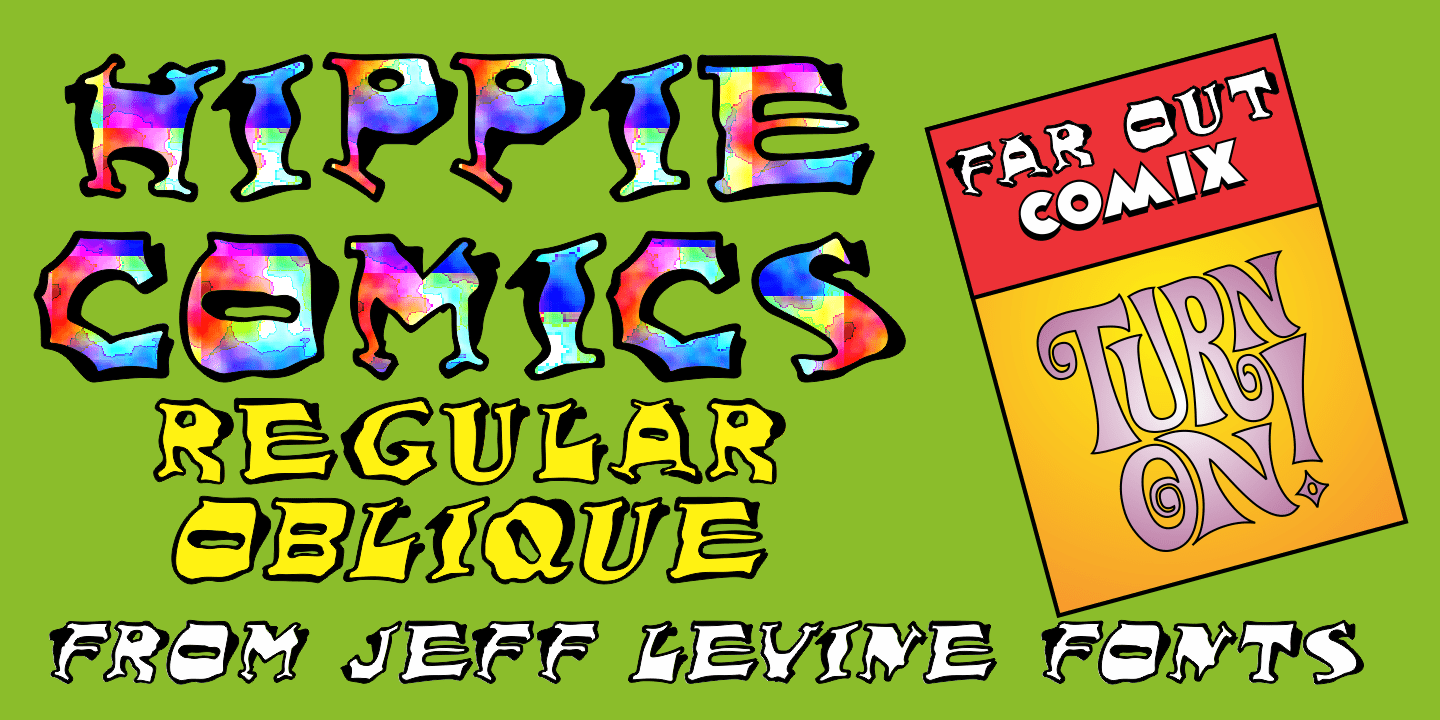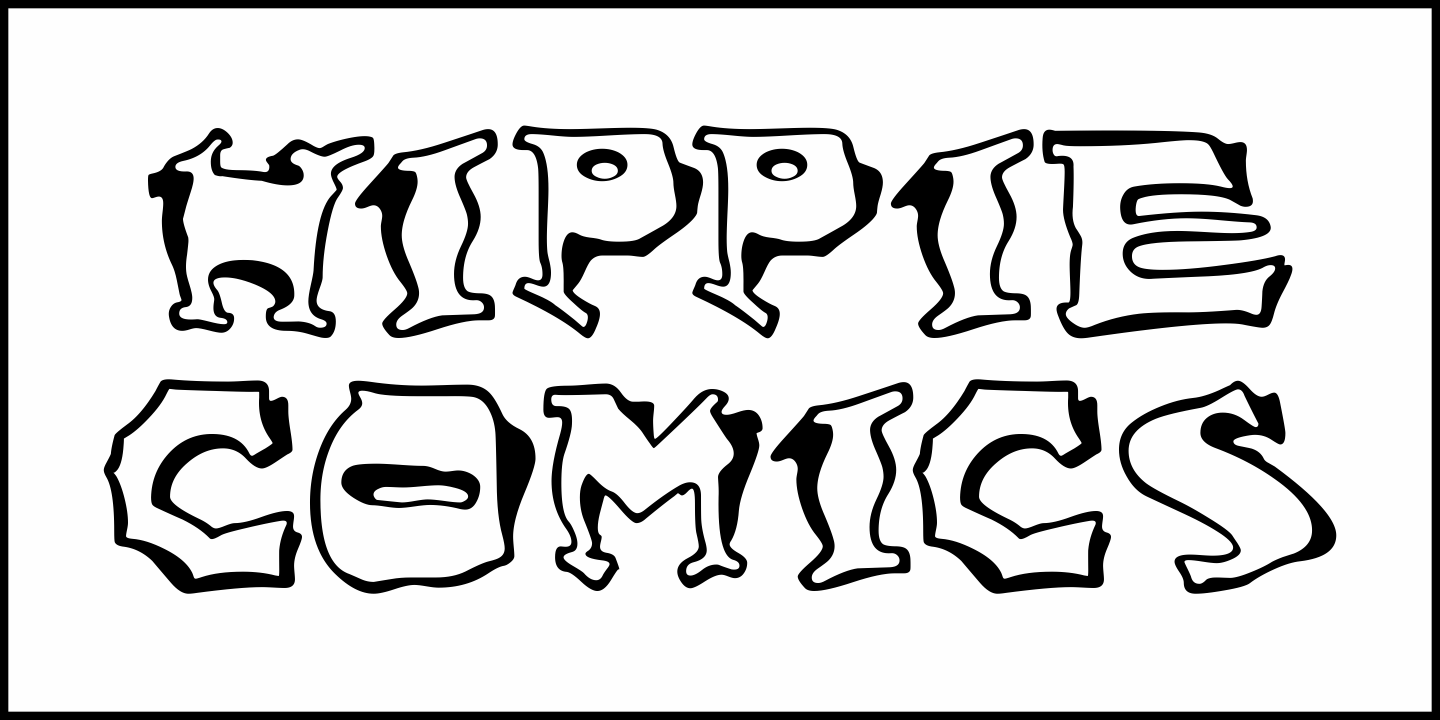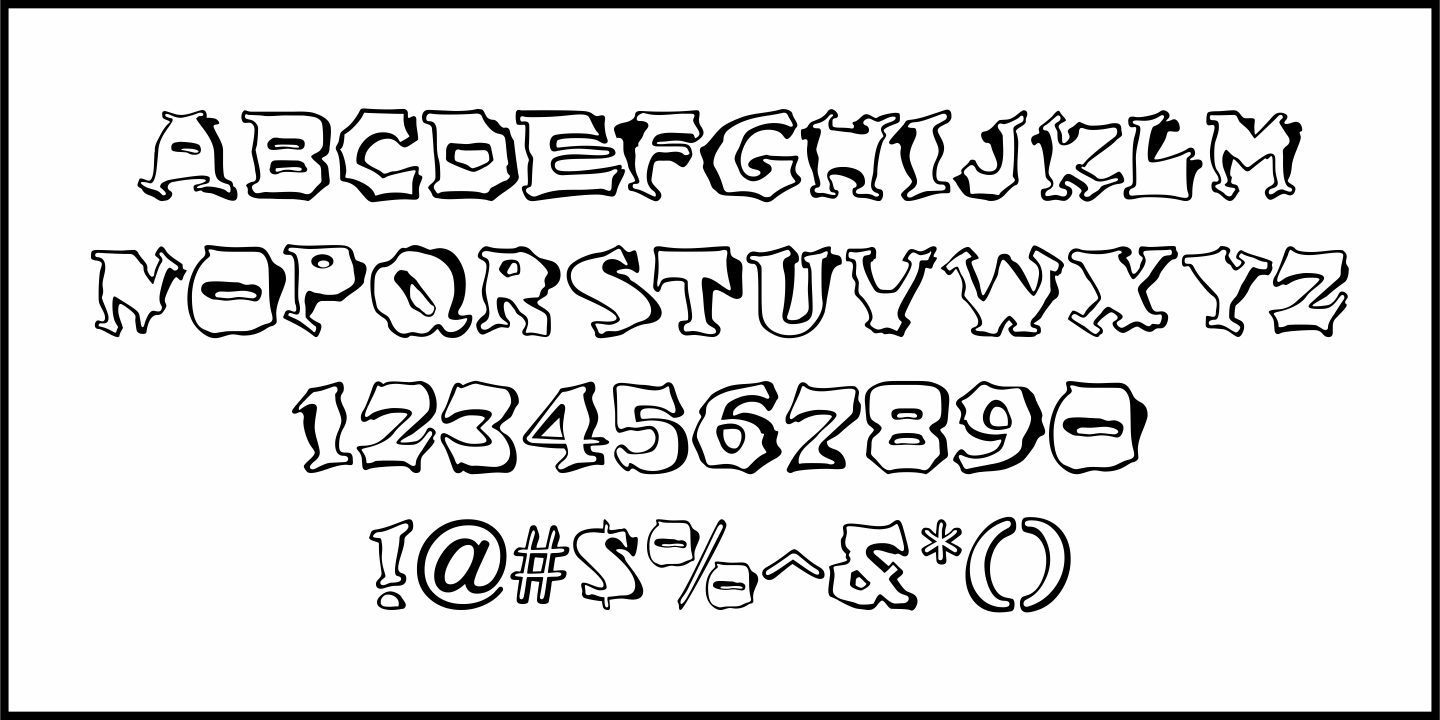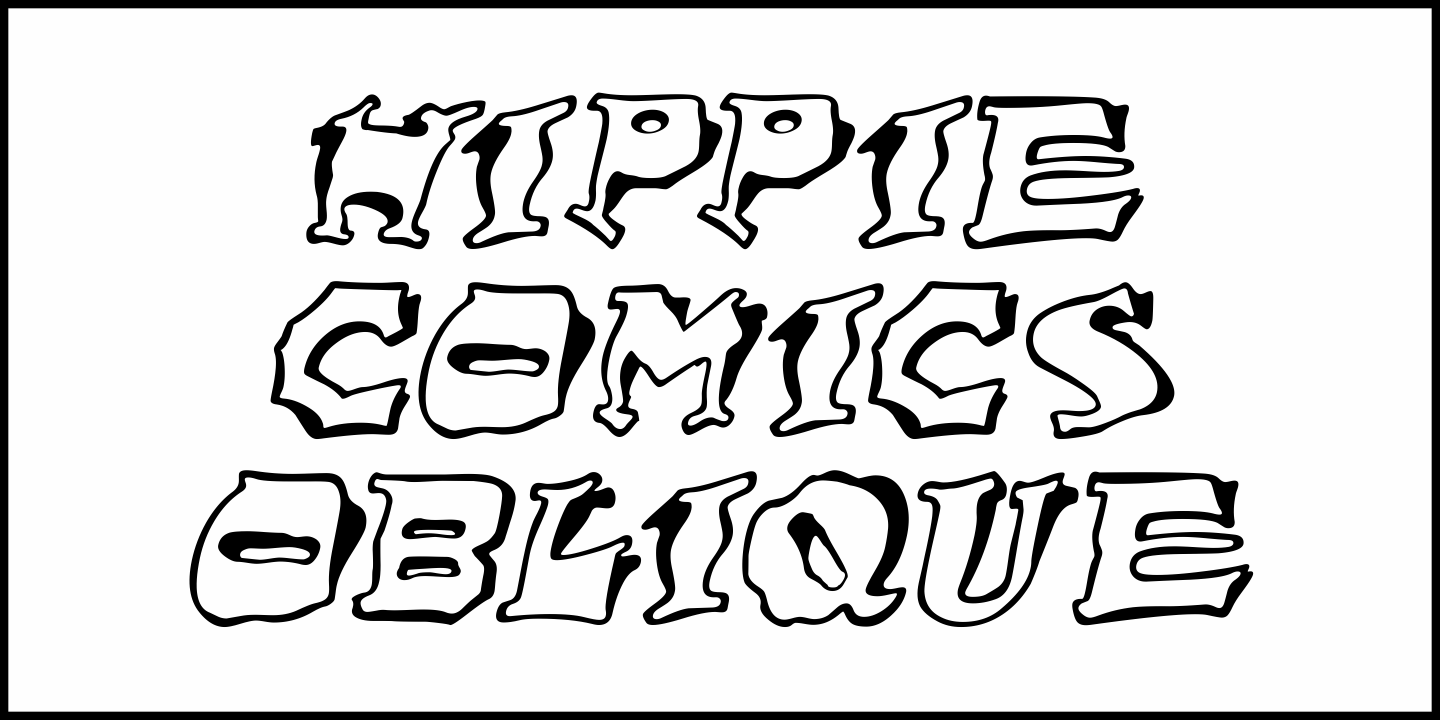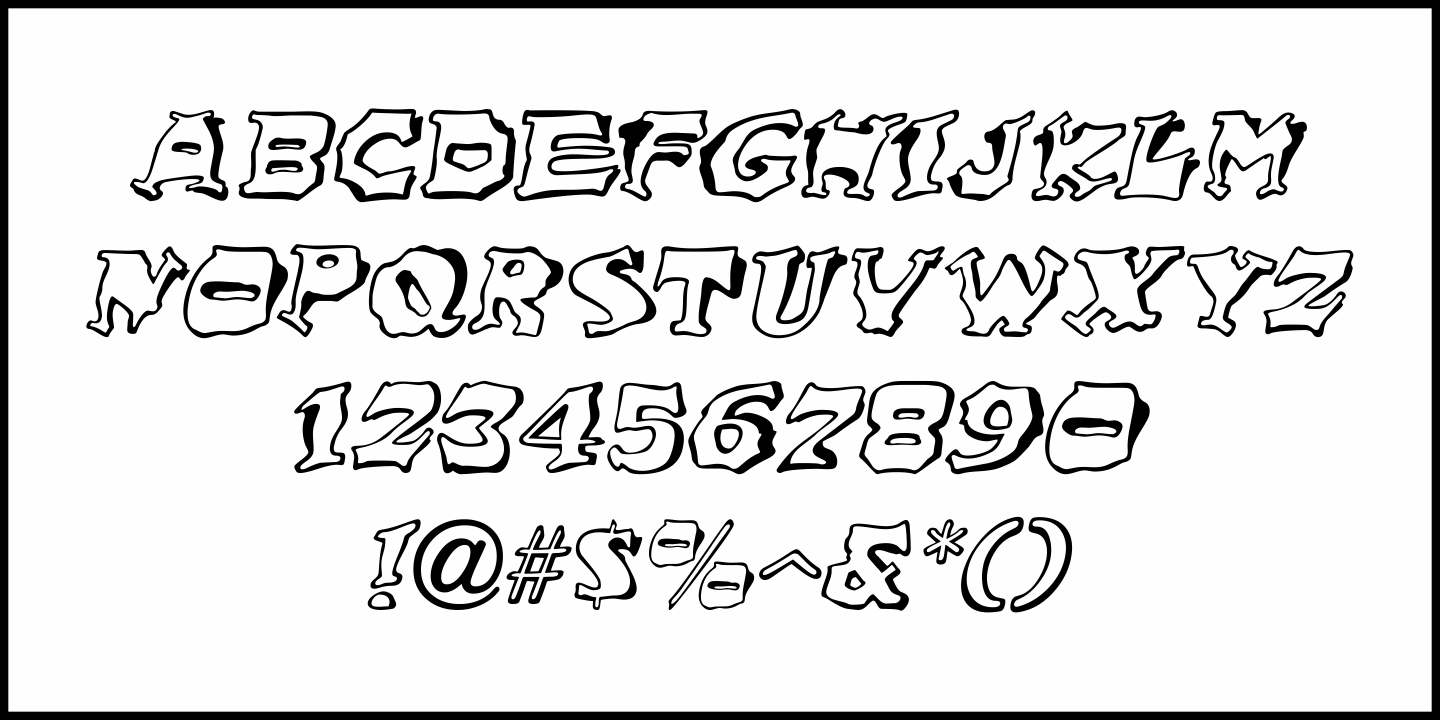
Hippie Comics
In the 1920 edition of “How to Paint Signs and Sho’ Cards” by E. C. Matthews is an example of what is termed “poster lettering” that is so free form and unusual it borders on the eccentric.
Resembling lettering more commonly found in 1960s “underground comics” of the Hippie generation rather than of the Art Nouveau period, it oddly enough works well in both styles.
This novelty typeface is now available as Hippie Comics JNL in both regular and oblique versions.